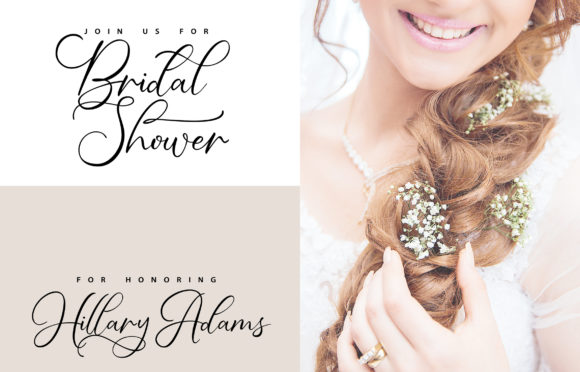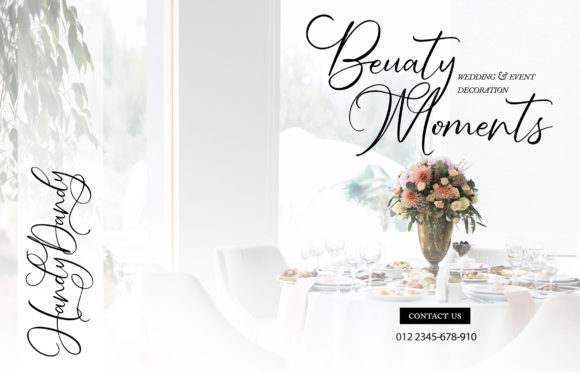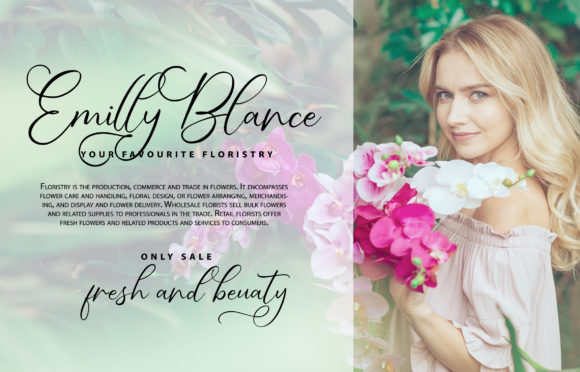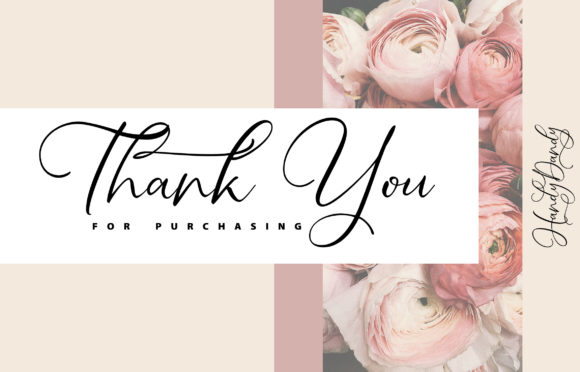
Introduction to Handy-Dandy Font
There’s something special about stumbling upon that perfect design element that brings a project to life. For designers, it’s the moment when every element falls into place, and the entire design feels cohesive and beautiful. I recall a particularly creative moment when I was working on a branding project, and I needed a font that would give my design a personal touch. That’s when I discovered the Handy-Dandy Font – a sweet and charming handwritten font that instantly captured my heart.
What sets Handy-Dandy Font apart is its timeless and flowing style, making it incredibly versatile and suitable for a wide range of contexts. Whether you’re working on a design project that requires a high-quality font with a transparent background or creating a custom logo, Handy-Dandy Font is an excellent resource to have in your toolkit.
As a valuable design resource, Handy-Dandy Font is not only aesthetically pleasing but also PUA encoded, allowing designers to access all of its glyphs and swashes with ease. With its varying baseline, smooth lines, gorgeous glyphs, and stunning alternates, this font is a must-have for any designer looking to elevate their creative project with a touch of elegance and sophistication.
Key Features of Handy-Dandy Font
- Includes a comprehensive character set with over 500 glyphs, making it perfect for multilingual projects
- Designed to be highly legible at resolutions up to 300 DPI, ensuring crisp and clear text
- Perfect for designers, artists, and creatives seeking a unique and versatile font for their next project
Honest Review: Handy-Dandy Font
What works well for Handy-Dandy Font is its high quality and versatility. The font is available in a range of weights and styles, making it easy to find the perfect version for your project. The transparent background option also allows for seamless integration with other design elements.
- ✨ High quality and versatile design
- ✨ Available in a range of weights and styles
- ✨ Transparent background option
The Handy-Dandy Font is ideal for use in logos, business cards, and other design projects where a high-quality, transparent background is required. It’s also great for use in digital designs, such as social media graphics and presentations.
Getting the Most Out of Handy-Dandy Font
To get the most out of the Handy-Dandy Font, experiment with different font sizes, colors, and transparency levels. You can also combine the font with other design elements, such as images and shapes, to create a unique and creative design project.